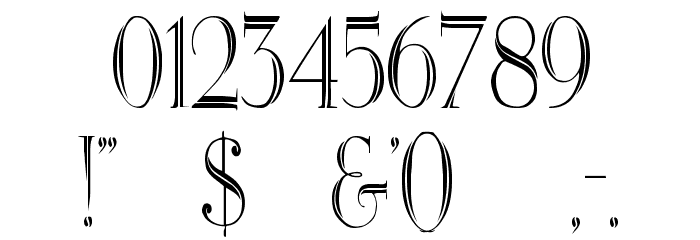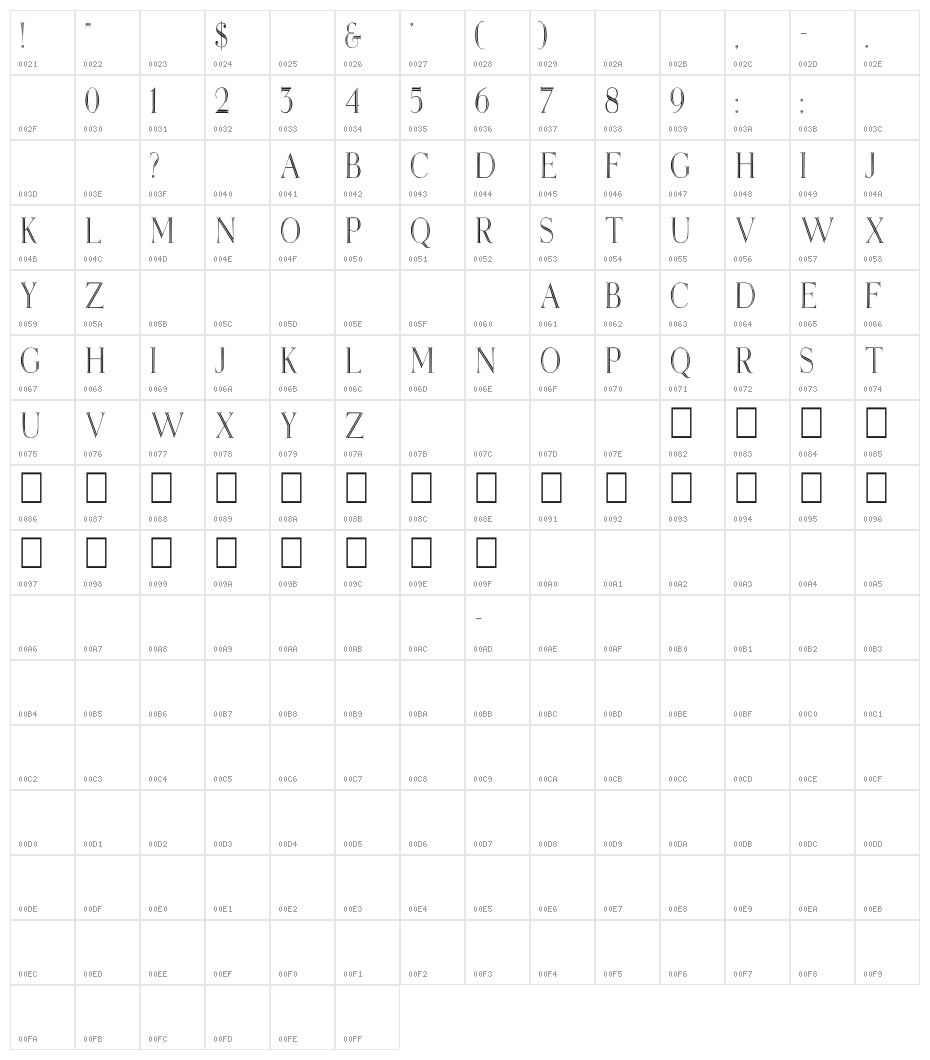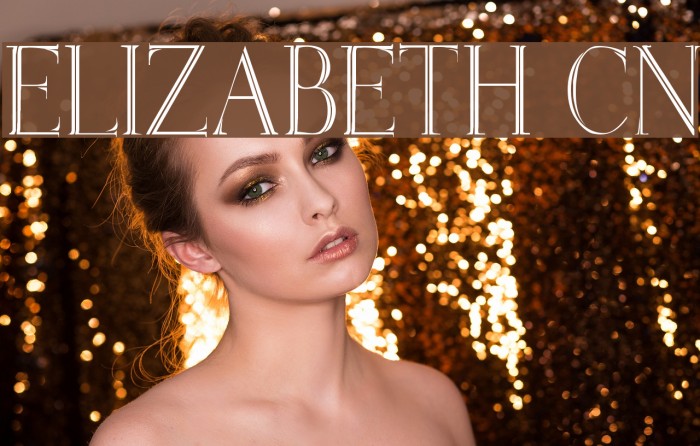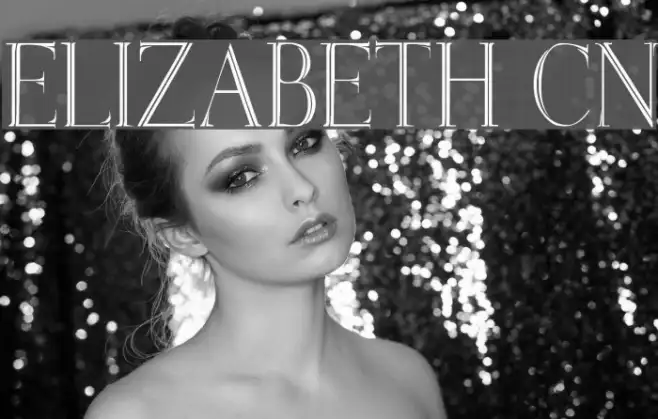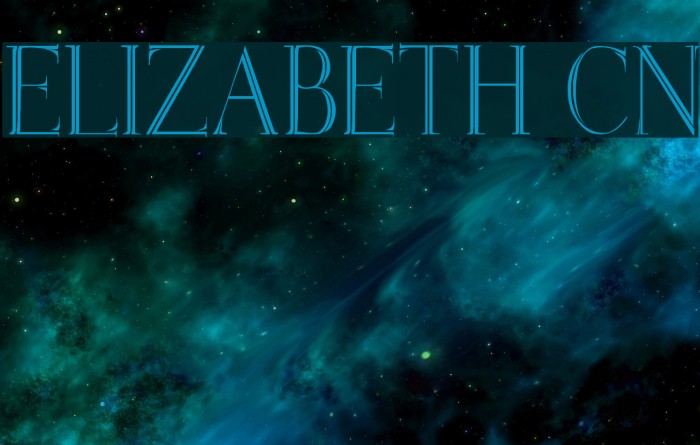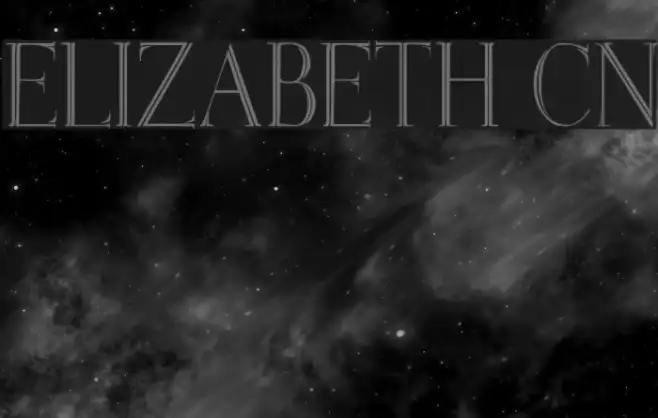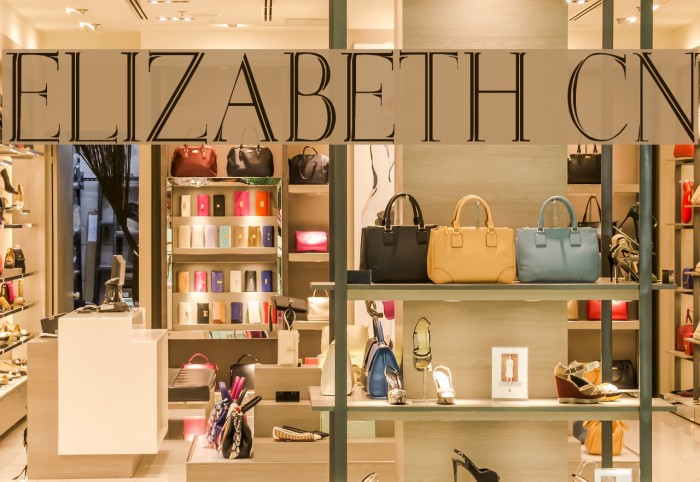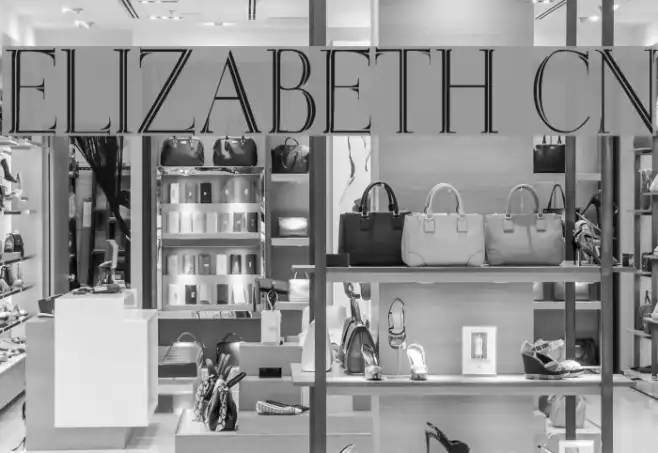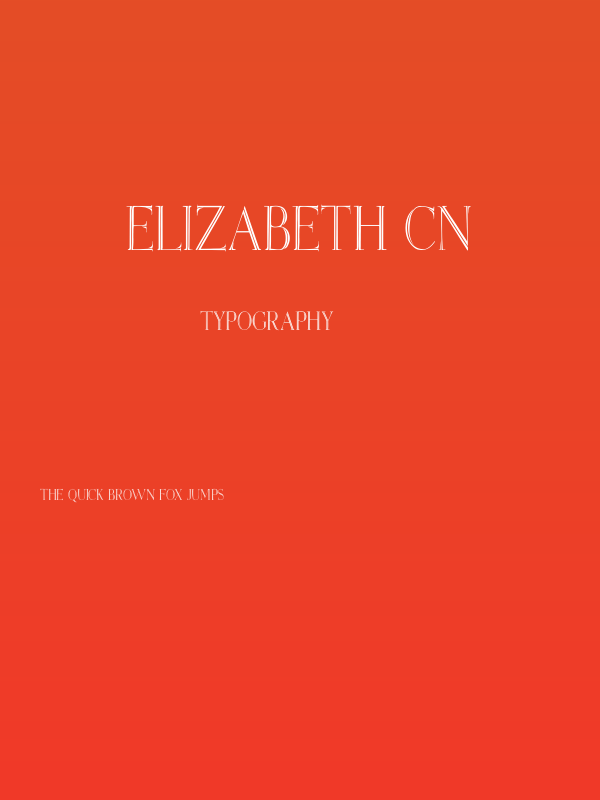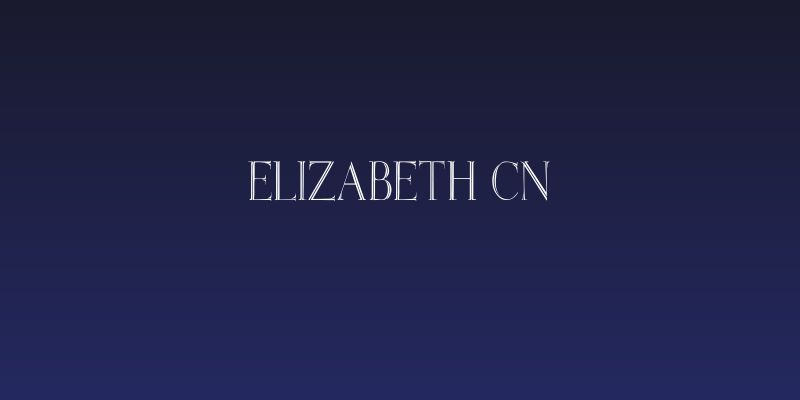
Elizabeth Cn Font
Elizabeth Cn Description
This font features a sophisticated and elegant design, characterized by its thin, elongated serifs and high contrast between thick and thin strokes. The uppercase letters are tall and stately, with a refined presence that suggests a sense of luxury and formality. The lowercase letters maintain this elegance, with a slightly more delicate touch, making them suitable for both display and text settings. The numerals are consistent with the overall style, offering a harmonious blend of curves and straight lines. Special characters are thoughtfully designed, maintaining the font's cohesive aesthetic. This font is ideal for projects that require a touch of class and sophistication.